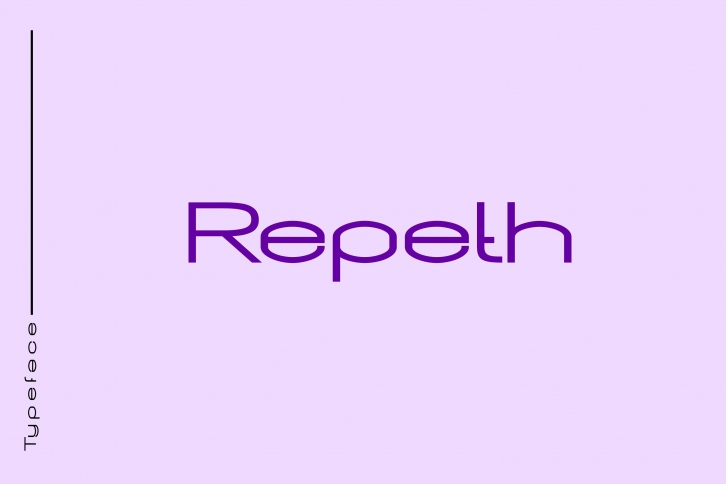
Repeth is a clean and modern looking display font. Add this minimalist and techno styled font to your web designs, logos or pretty much anything that requires a smart, cool touch.